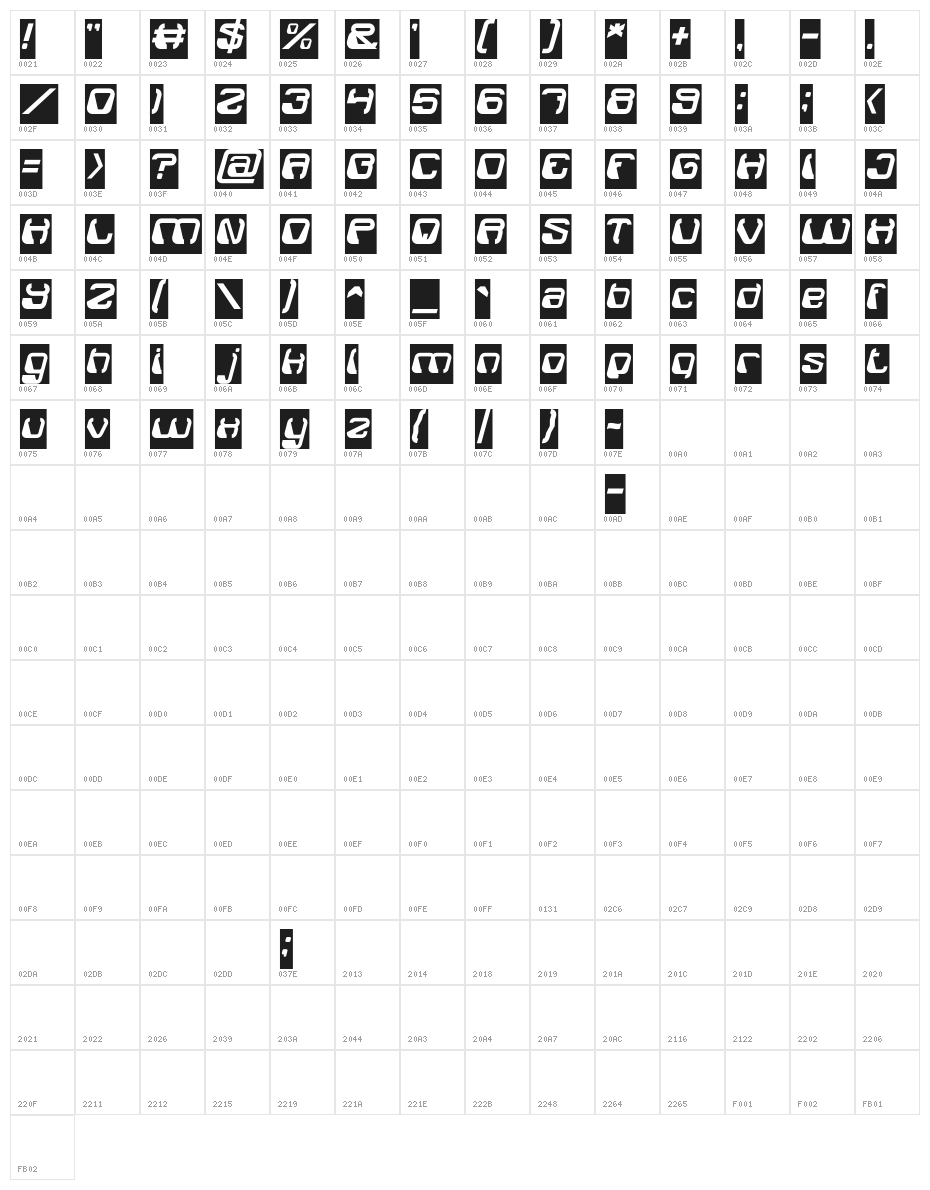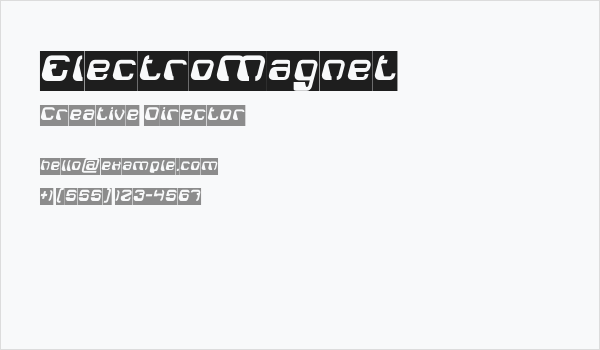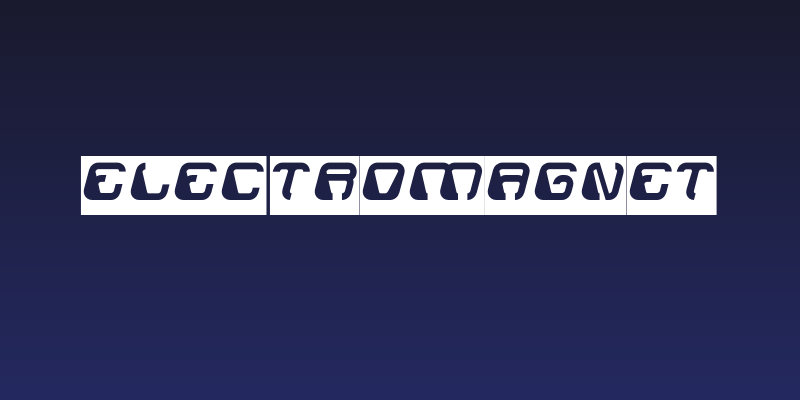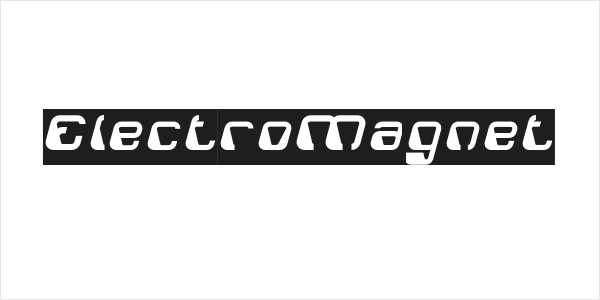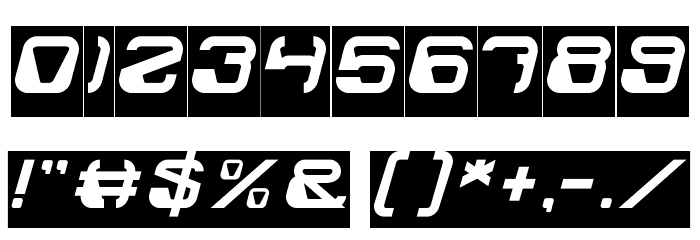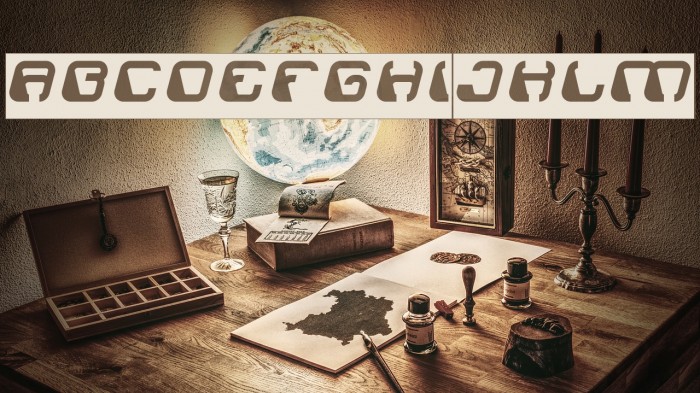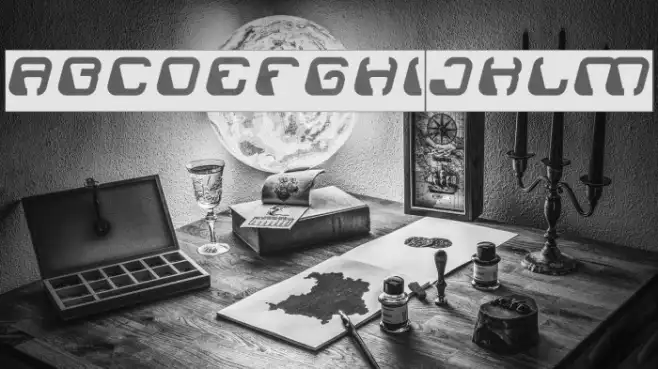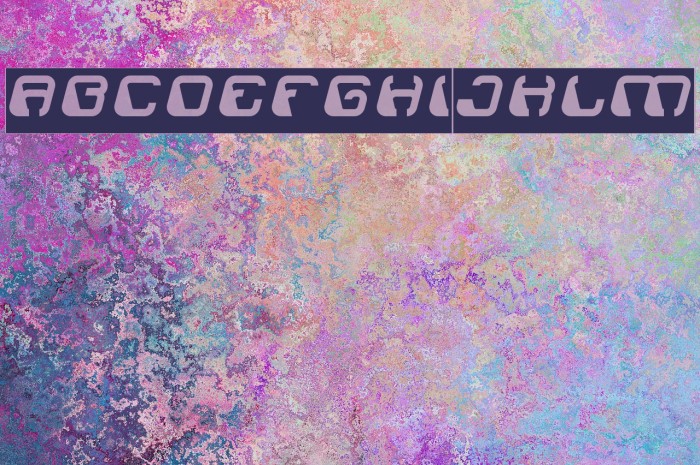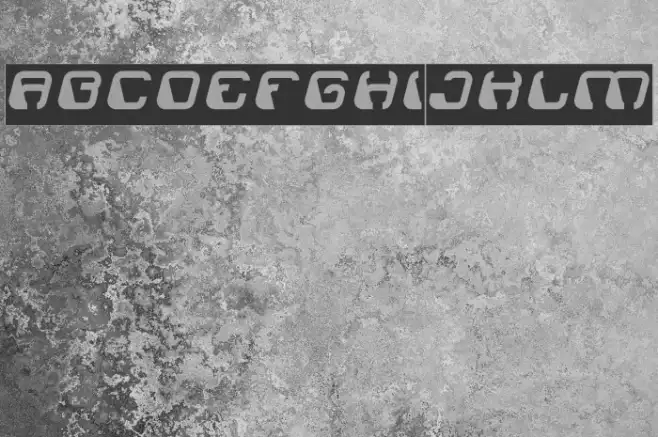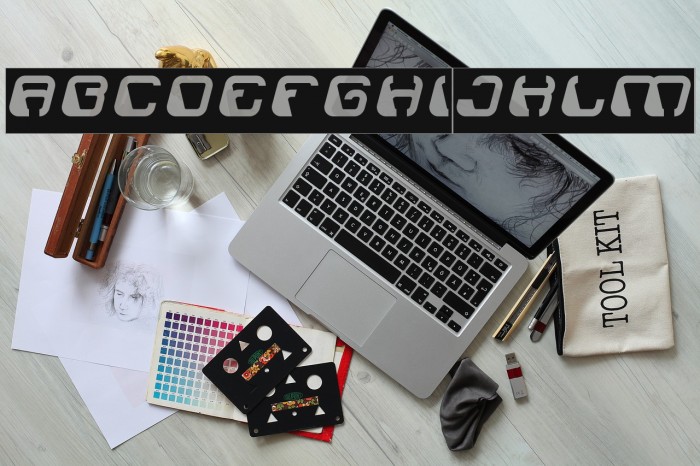
ElectroMagnet Font
ElectroMagnet Description
This font features a futuristic and bold design, characterized by its geometric shapes and sharp angles. The letters are enclosed in rectangular blocks, creating a distinct and modern appearance. The uppercase and lowercase letters maintain a consistent style, with a strong emphasis on angular cuts and a slightly condensed form. The numbers and special characters follow the same design principles, ensuring uniformity across all elements. The font's unique style makes it stand out, suitable for projects that require a modern and edgy look.
| Proposed Projects | Ideal for technology branding, sci-fi posters, video game titles, and modern advertising. |